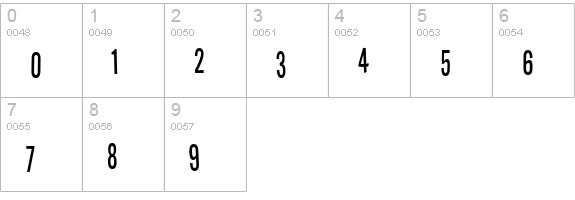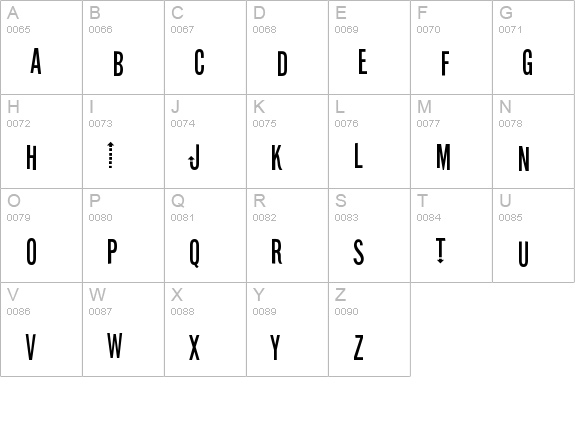
Stereofidelic Font Details
Stereofidelic font is a captivating and modern typeface that combines the perfect blend of style and sophistication. With its sleek lines and bold strokes, Stereofidelic exudes a sense of creativity and innovation that is sure to make any design project stand out. This versatile font is ideal for a wide range of applications, from branding and advertising to editorial design and web graphics. Best of all, Stereofidelic font is available for free download at FontsMarket.com. Take advantage of this incredible offer and add a touch of sophistication to your next project with Stereofidelic font. Whether you're a seasoned designer or just starting out, this font is sure to inspire and elevate your creative endeavors. Download Stereofidelic font today and unleash your creativity like never before.